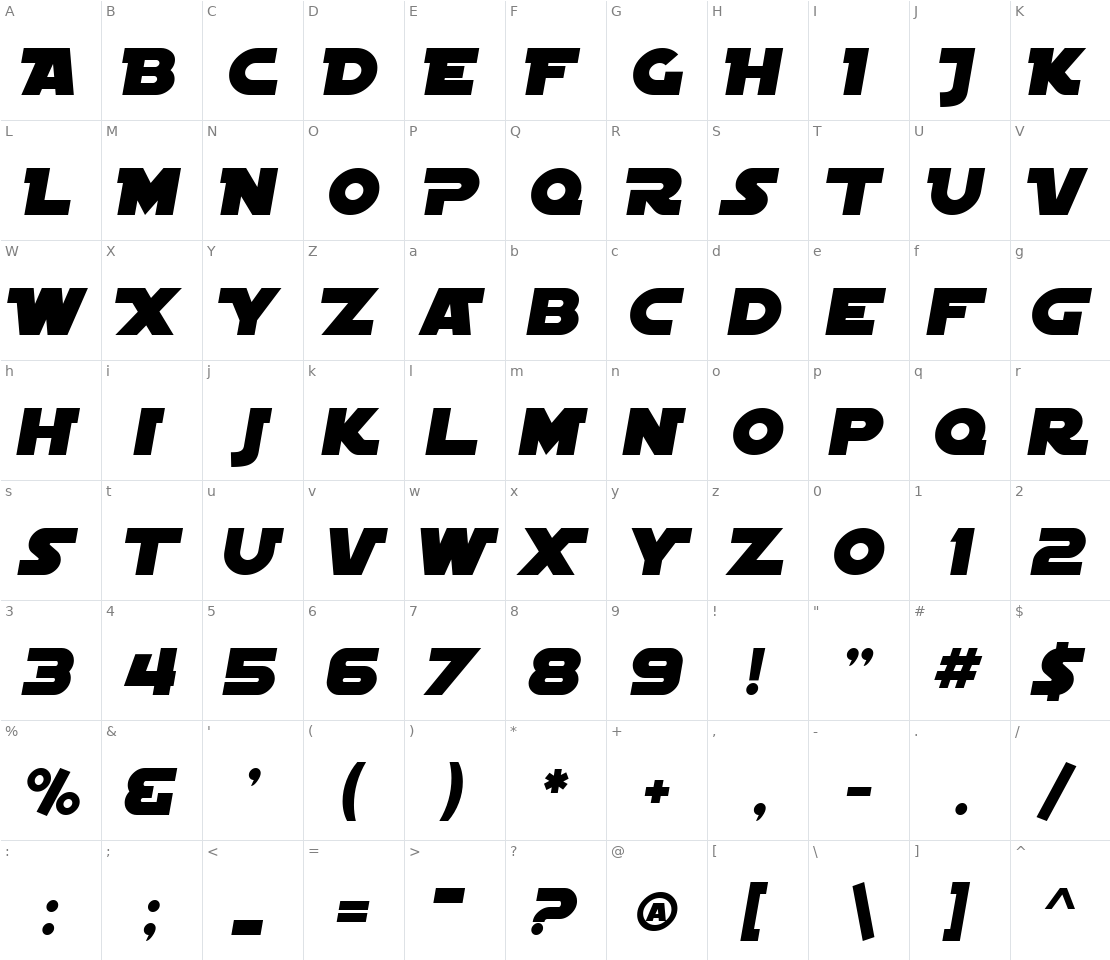
Distant Galaxy
Distant Galaxy is a bold, italic display face from Shy Fonts that wears its Star Wars influence on its sleeve, with angular letterforms and a forward-leaning slant that feel pulled straight from a galaxy far, far away. The sharp geometry and heavy weight make it immediately recognizable at large sizes, built for headlines, fan projects, posters, and anything that needs that unmistakable space opera energy.